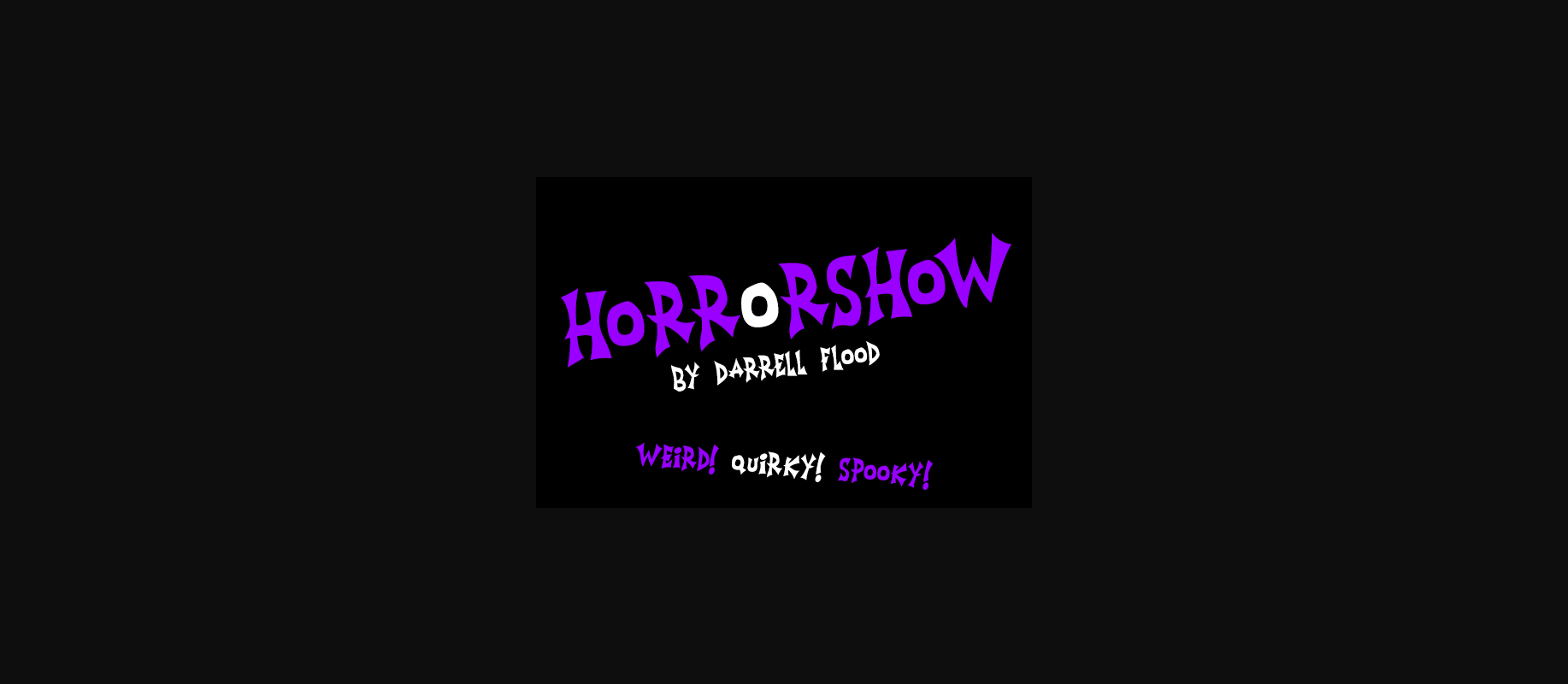
Horrorshow Font
About Horrorshow Font
An unusual, cartoon style font, ideal for haunted houses and spooky occasions. This decorative font is appealing and fun, and is bold enough to be used as a display font.